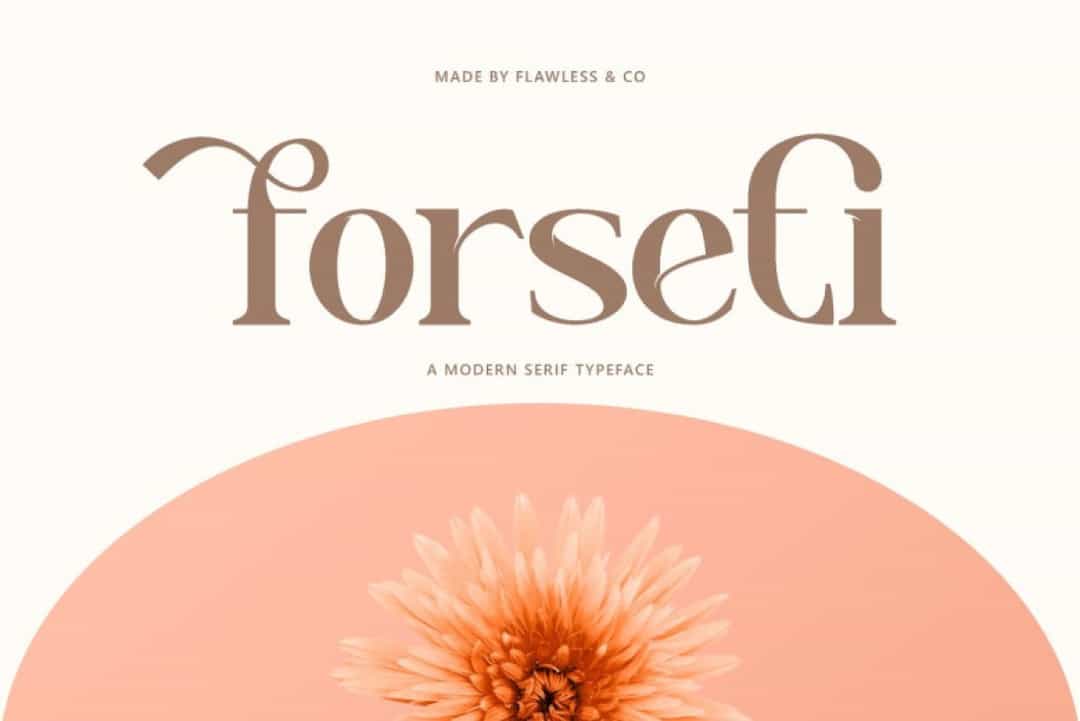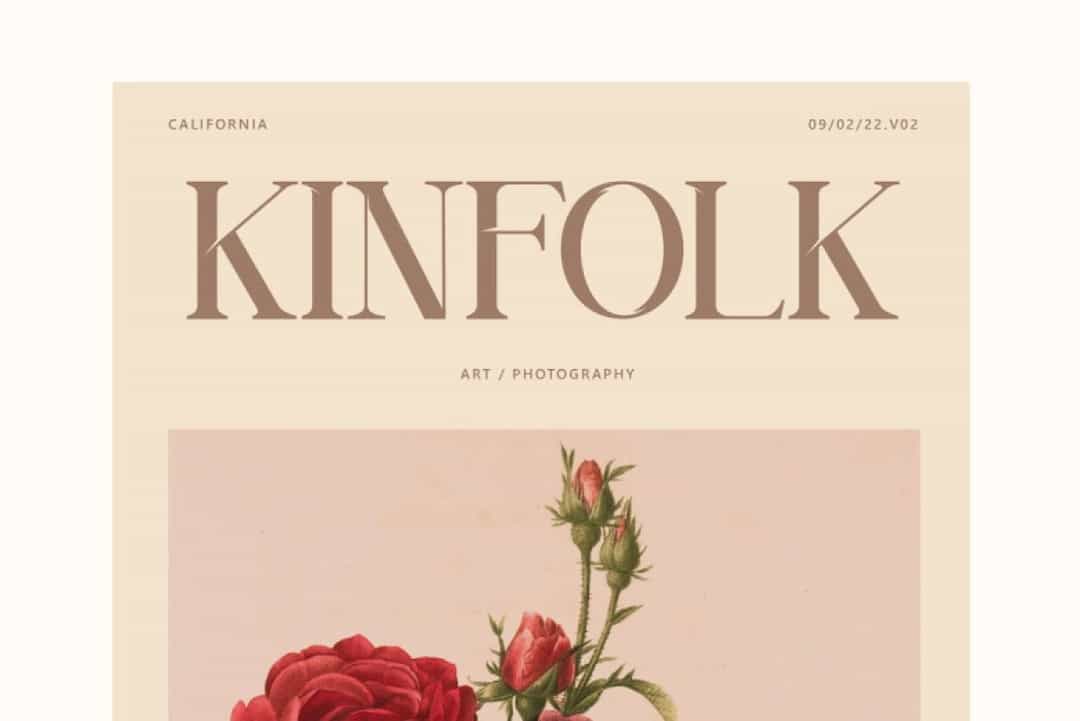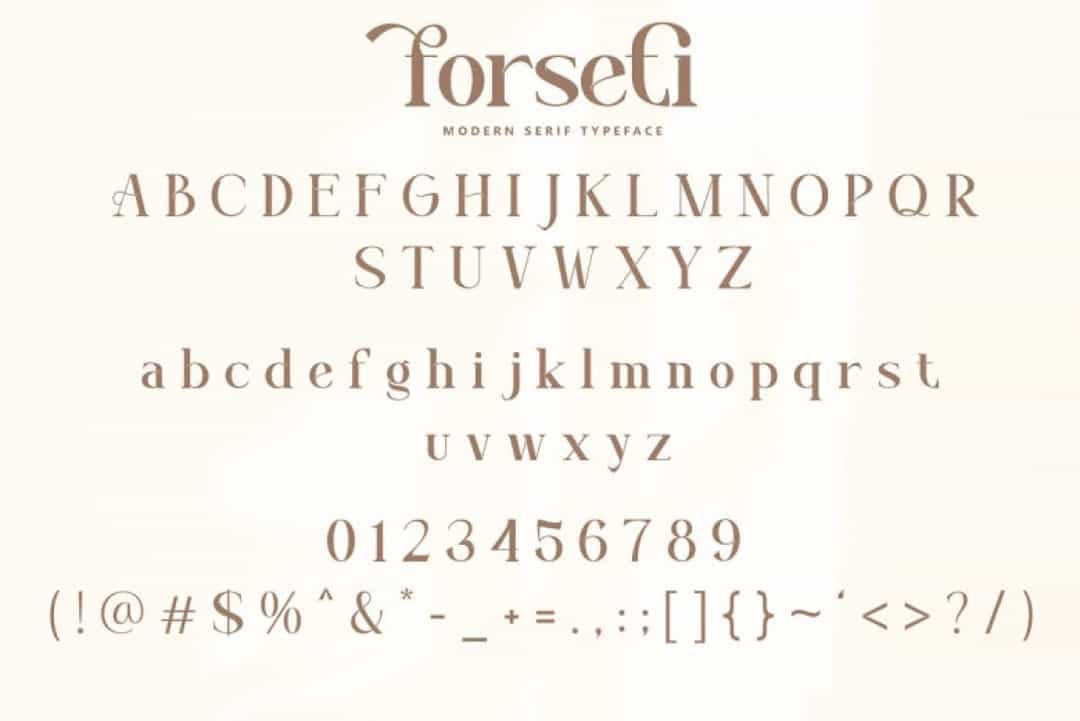
Forseti is an elegant serif typeface designed with a trendy edge. Perfect for luxurious feminine designs with its trendy accent and its contemporary feel. Forseti was made to create attractive modern designs.